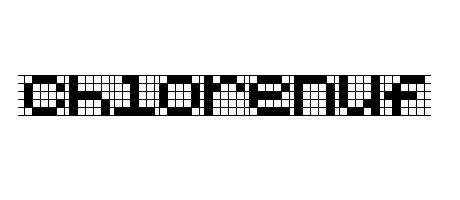
Chlorenuf
Chlorenuf, a striking display typeface, boasts a bold, almost brutalist aesthetic. Its thick, blocky letters are intersected by a grid-like pattern, creating a sense of structure and confinement. The overall effect is simultaneously stark and captivating, suggesting themes of order and constraint, perhaps even a hidden message.